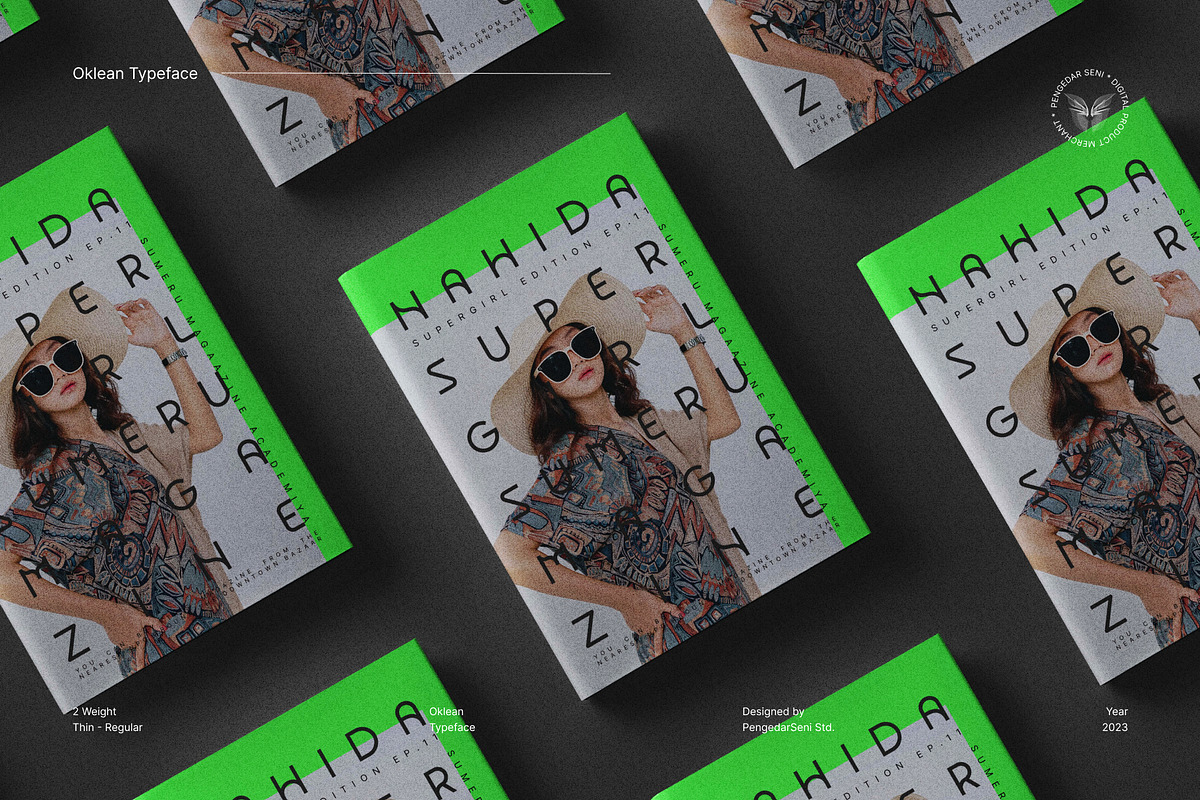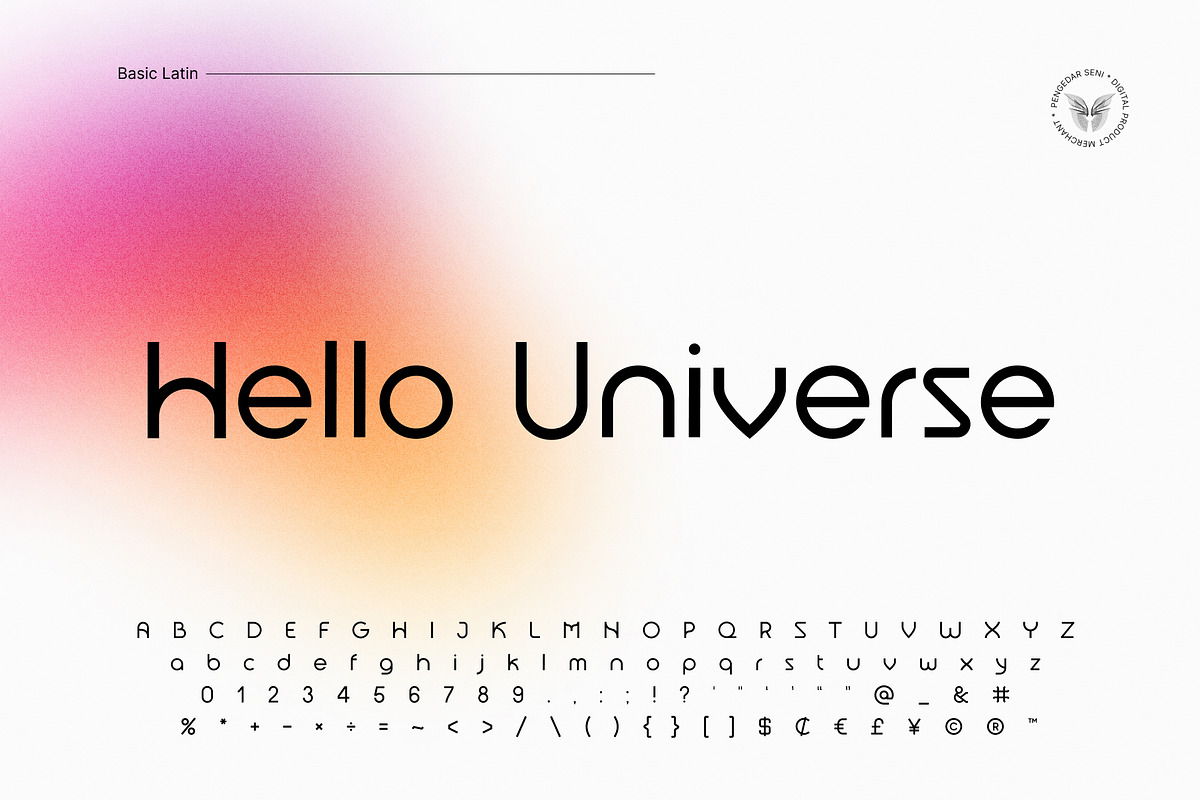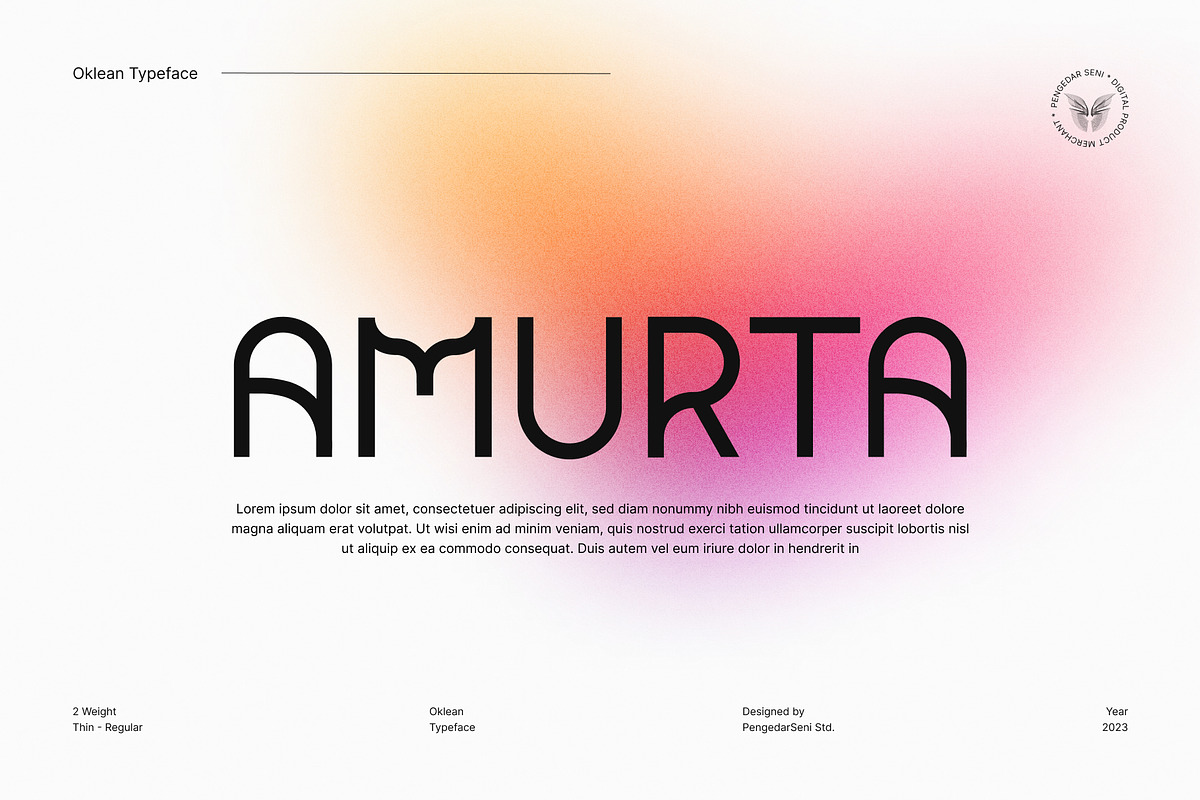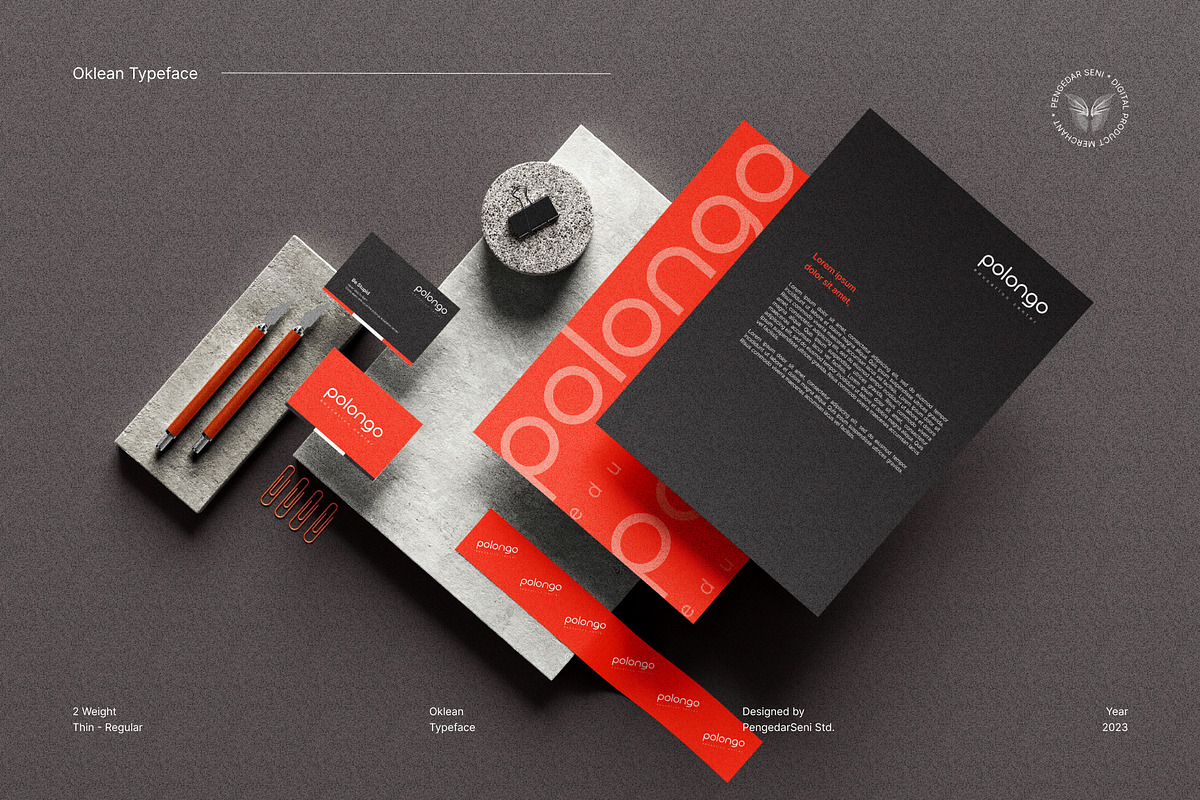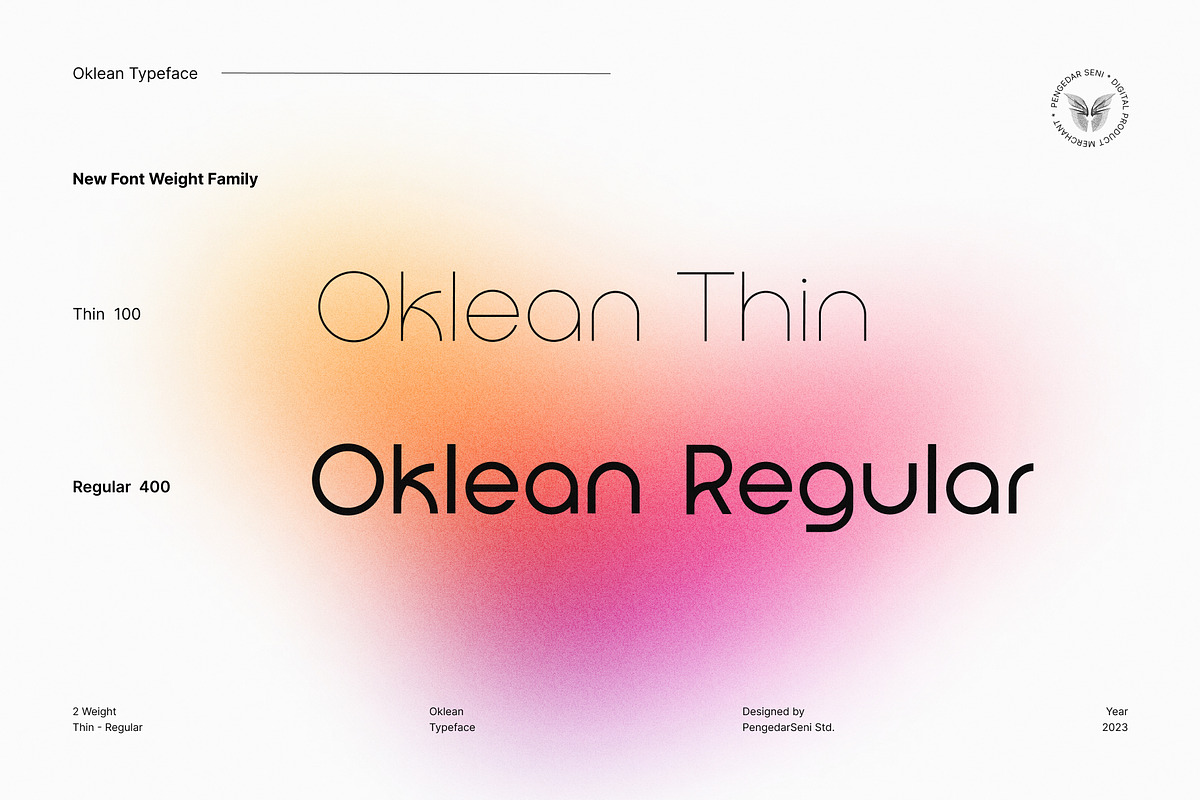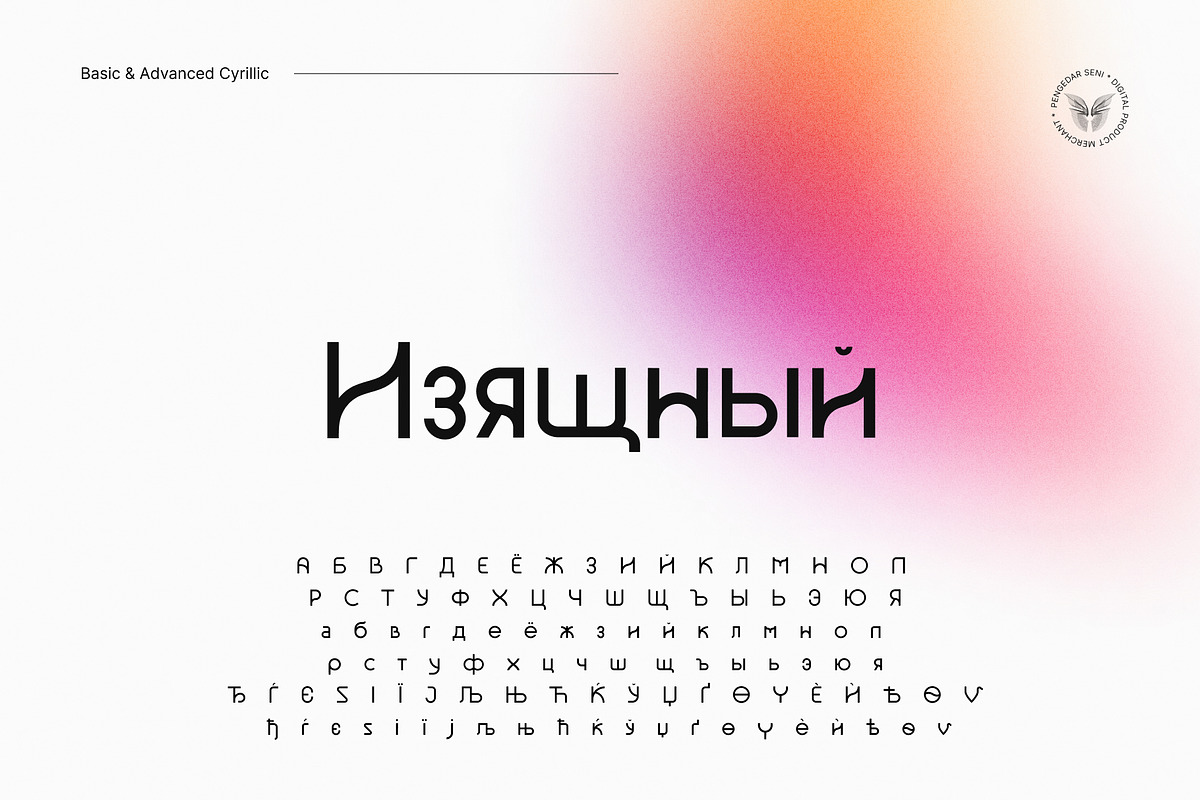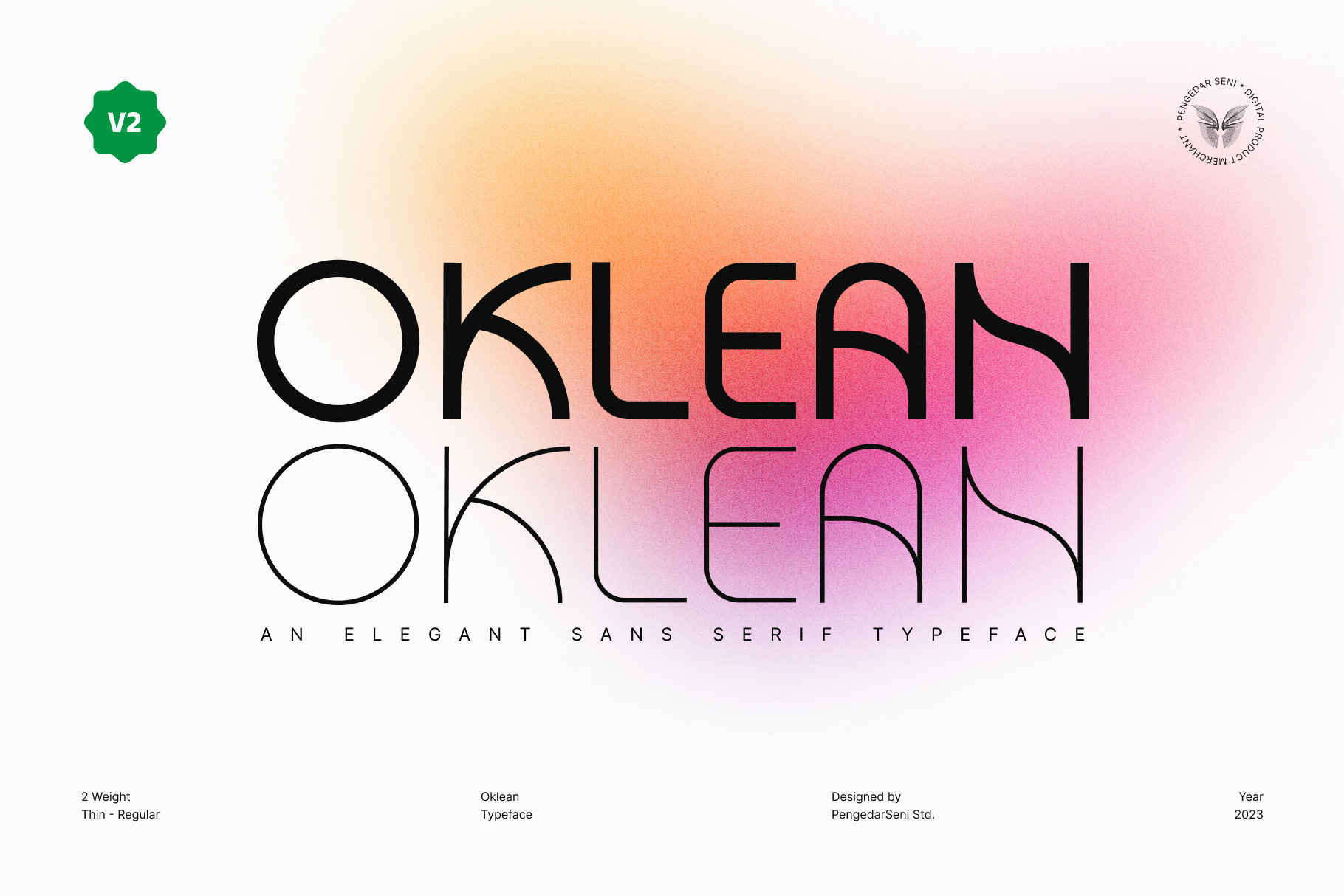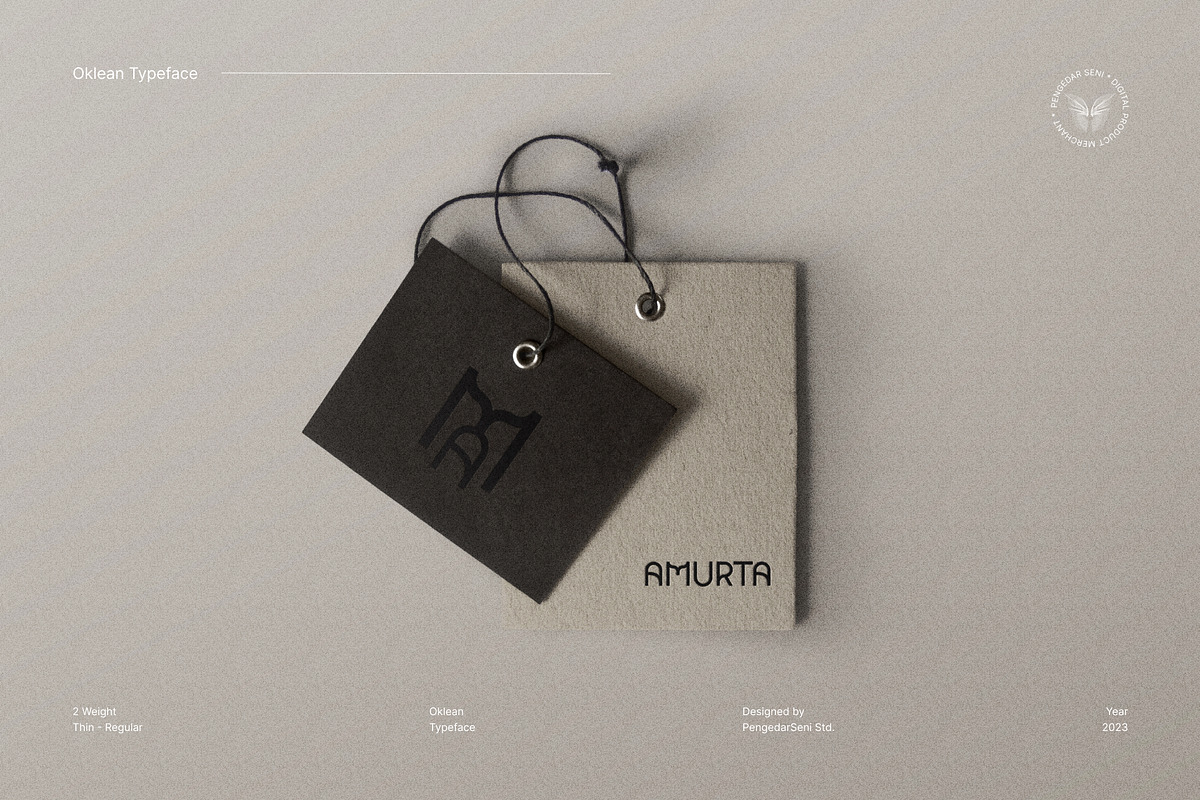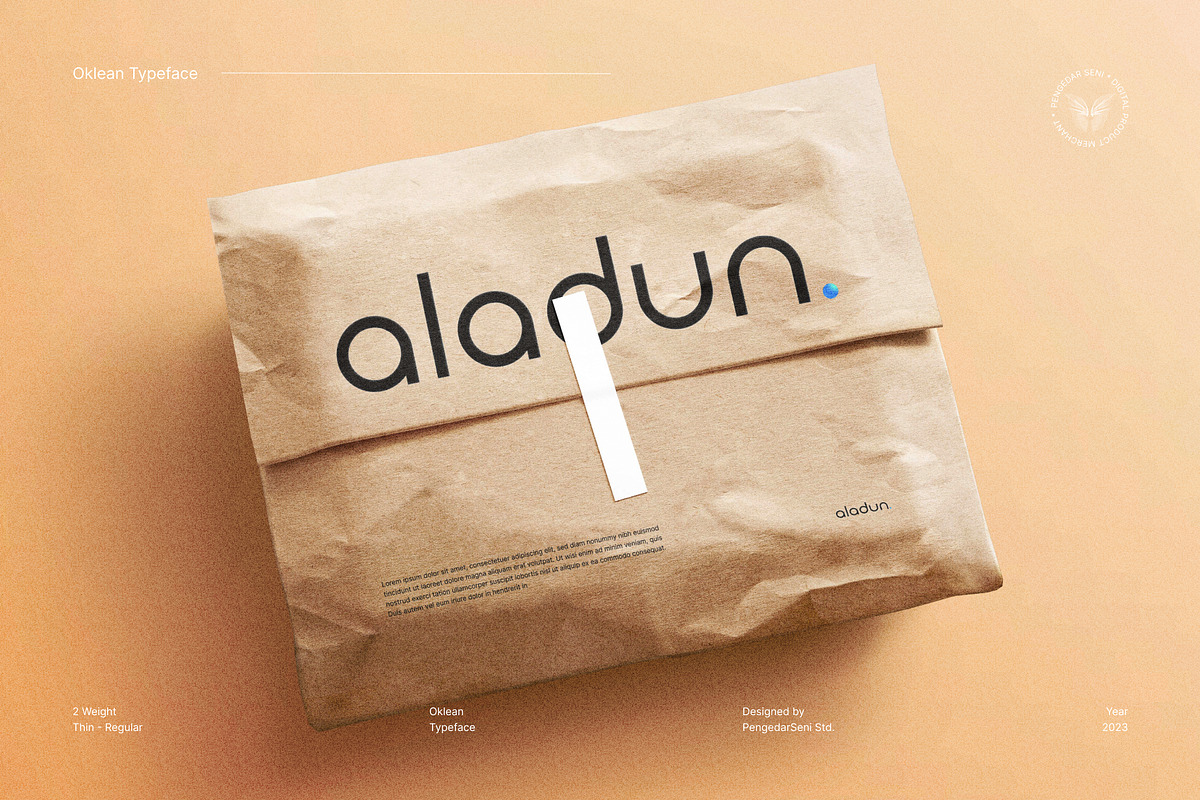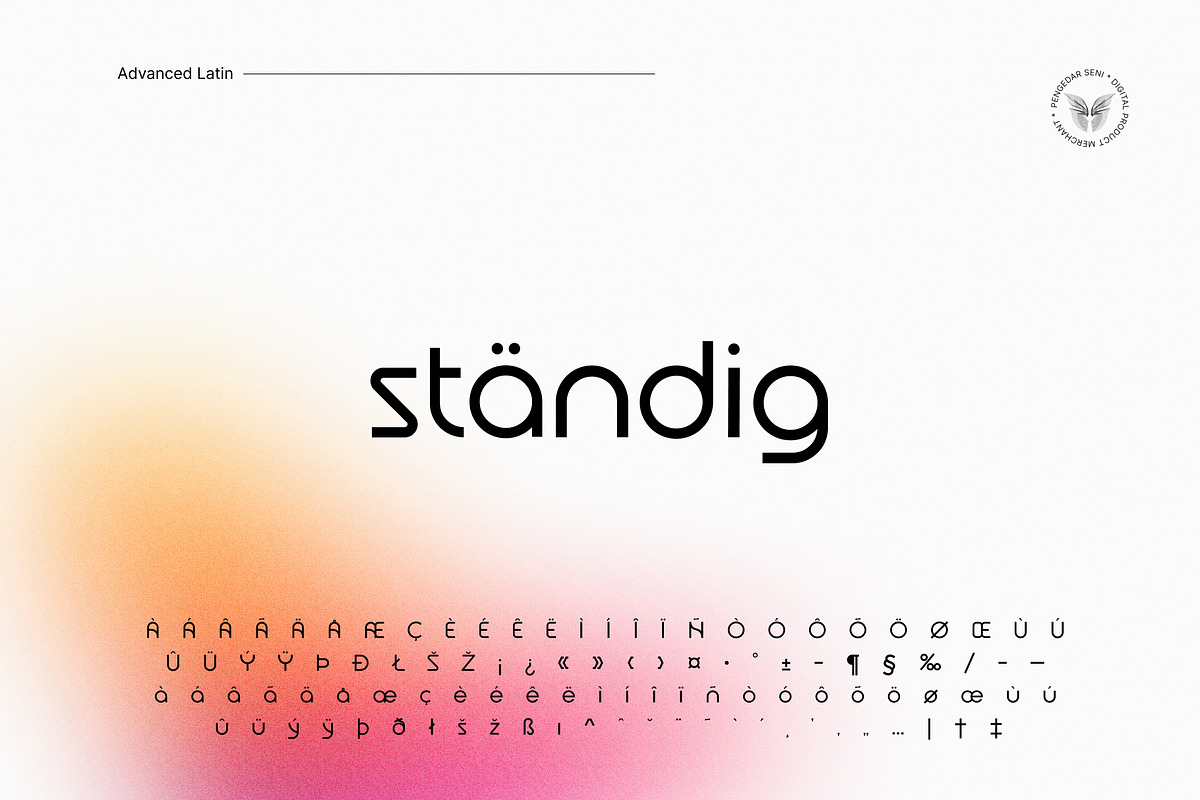
Oklean - Elegant Sans Serif Typeface
OKLEAN V2 – Elegant Sans Serif Typeface Designed for Clarity, Precision, and Versatility.
Oklean is a special font for your logo & branding. Every character is designed for a good logo, so they are not suitable for long texts.
Oklean has a concept that is : Bright / Clean / Clear / Cool / Nature / Minimal / Smart / Urban / Balanced.
Oklean is a sleek, modern sans-serif typeface crafted for impactful branding and design. Originally available in Regular, Oklean now features an expanded family with the addition of Oklean Thin, offering even greater creative flexibility. This version brings refined letterforms and enhanced character support, making it a perfect choice for logos, branding, UI/UX, packaging, and minimalist aesthetics.
Why Choose Oklean?
✅ Modern & Minimalist Aesthetic – A clean, sophisticated design ideal for contemporary branding.
✅ Two Weights (Thin & Regular) – Balanced versatility for bold headlines and subtle elegance.
✅ Highly Legible & Sharp – Designed for logos, signage, editorial layouts, and UI interfaces.
✅ Comprehensive Character Set – Supports Basic & Advanced Latin + Basic & Advanced Cyrillic. -
✅ Multilingual Support – Covers a wide range of international languages.
✅ Perfect for Branding – Suitable for startups, tech companies, urban fashion, and editorial design.
Character Set:
A-Z / a-z / 0-9
Basic Latin & Advanced Latin
Basic Cyrillic & Advanced Cyrillic
Punctuation, symbols, and special characters
Language Support: Albanian, Basque, Breton, Chamorro, Danish, Dutch, English, Faroese, Finnish, French, Frisian, Galician, German, Icelandic, Italian, Malagasy, Norwegian, Portuguese, Spanish, and many more.